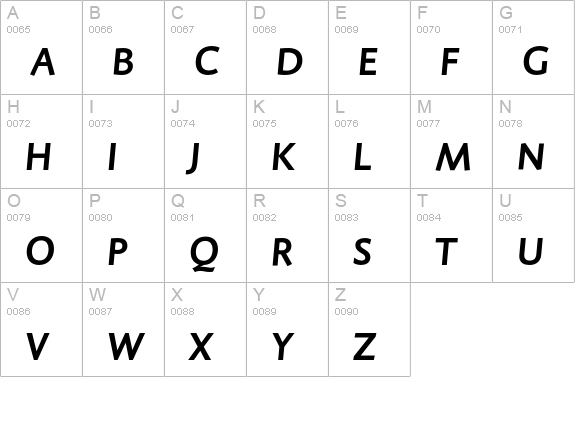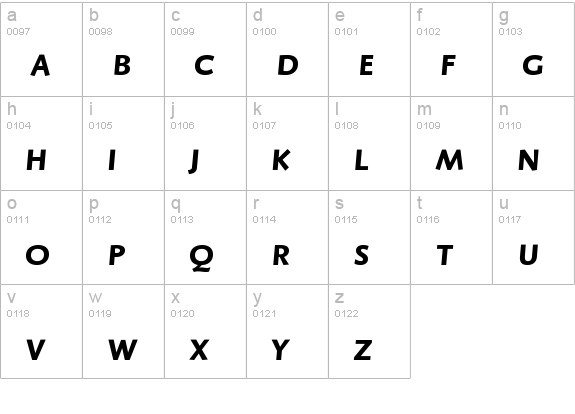
DTLCaspariTCaps-BoldItalic Font Details
The DTLCaspariTCaps-BoldItalic font is a strong and stylish typeface that exudes confidence and sophistication. Its bold and italic design adds a touch of flair to any text, making it perfect for headlines, titles, and other attention-grabbing elements. The unique combination of thick strokes and slanted angles creates a dynamic visual impact that commands attention. What sets DTLCaspariTCaps-BoldItalic apart is that it is available for free download at FontsMarket.com. This means you can easily access this striking font to elevate your design projects without any cost involved. Whether you're working on a branding campaign, a poster, or a website, DTLCaspariTCaps-BoldItalic is sure to make a statement and leave a lasting impression on your audience. Download it today and unleash the power of this bold and italic typeface in your creative endeavors.